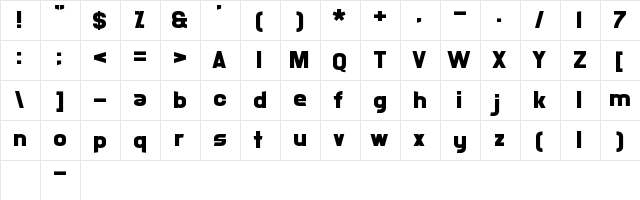
Xsotik Regular Font Preview
Xsotik Regular
Xsotik Regular Font Details
Design Context for Xsotik Typeface
Xsotik takes a measured approach to typography — its balanced proportions and neutral character make it a reliable workhorse for both digital and print work.